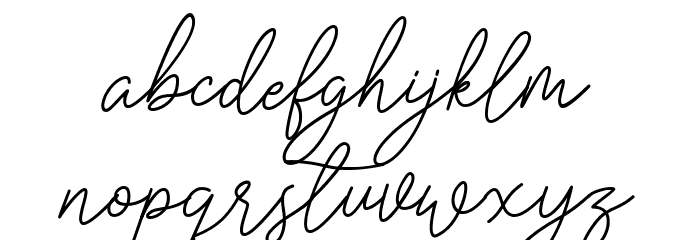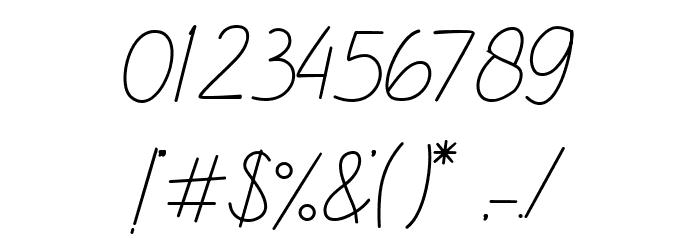
Caramella Bold Font
This font features a delicate and elegant script style, characterized by its flowing, cursive letterforms. The uppercase letters are tall and slender, with a slight slant that adds a sense of movement and grace. The lowercase letters are more intricate, with loops and curves that enhance its handwritten appearance. The numerals maintain the same elegant style, ensuring consistency throughout. Special characters are also designed with the same attention to detail, making this font suitable for a variety of uses where a touch of sophistication is desired.
An elegant, cursive script font with flowing letterforms.
- Font: Caramella Bold
- Proposed Projects: Ideal for wedding invitations, elegant branding, personal stationery, and decorative quotes.
- Category: Script
- Overall Style: Elegant, Handwritten
- Use Case: Logos, Invitations, Decorative text